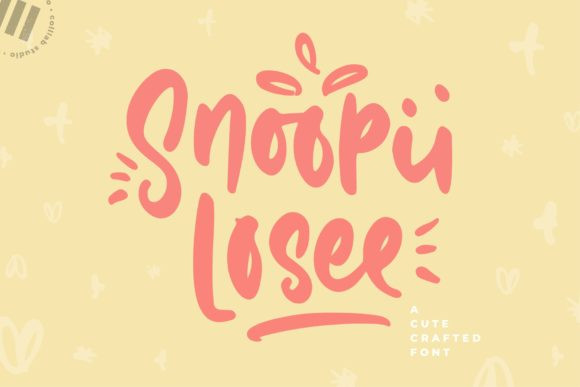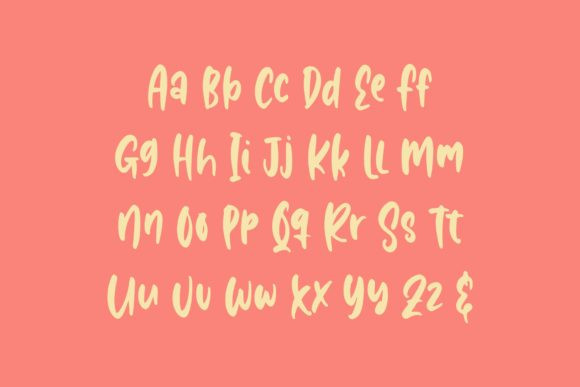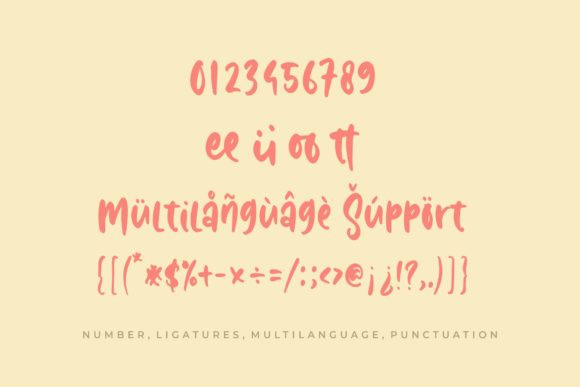
Snoopii Loosee Font
Snoopii Losee embodies fun, cute, playfulness, and authenticity. This enchanting display font will turn any creative idea into a true standout.